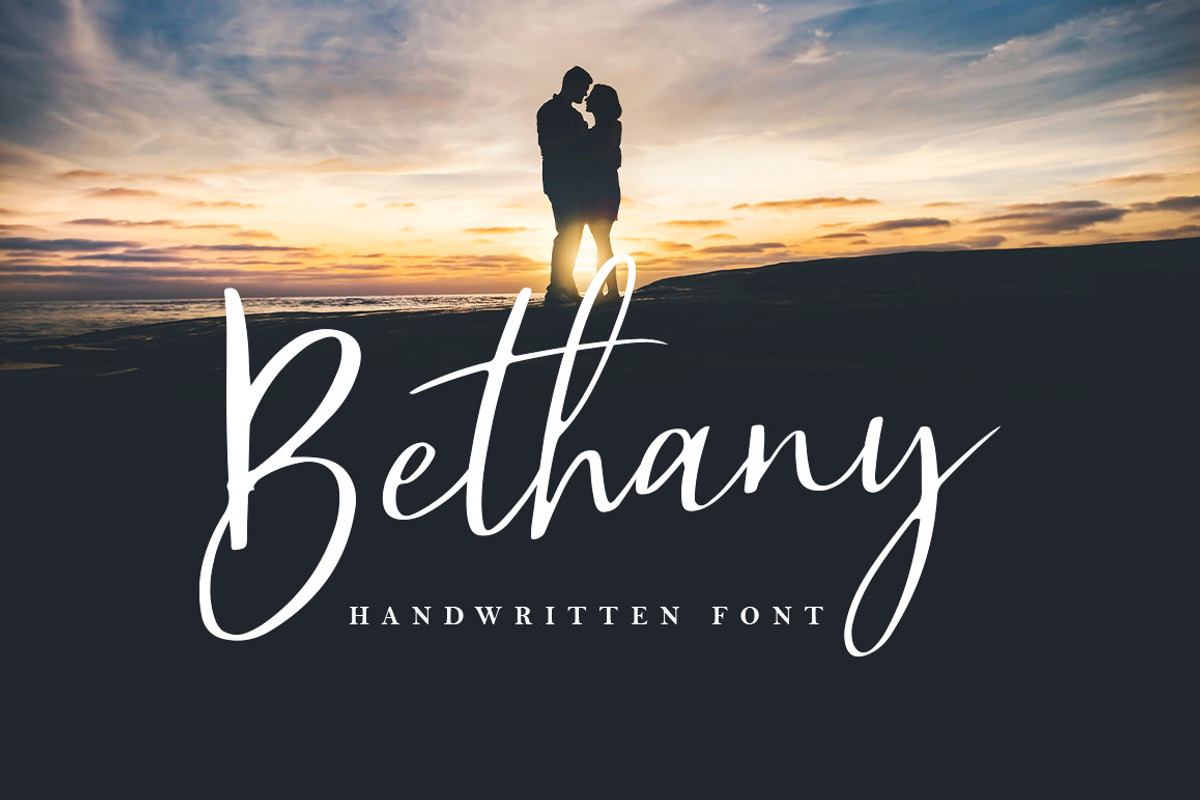
Please note that you must purchase this font for commercial use. You can download Bethany Script Font for free, strictly for personal testing purposes only. Bethany Script is a beautiful, flowing handwritten font that exudes elegance and charm. With its smooth, graceful curves and sophisticated appearance, Bethany Script Font Free Download is perfect for wedding invitations, branding, logos, greeting cards, social media graphics, and any project that requires a romantic or elegant touch.
This font offers a personal, artistic feel while maintaining readability, making it ideal for designs that need both style and clarity. It includes uppercase and lowercase letters, numerals, punctuation, and multilingual support, providing flexibility for a variety of creative applications.
Whether you're designing a luxurious brand identity or crafting an intimate invitation, Bethany Script adds elegance and personality to your typography.